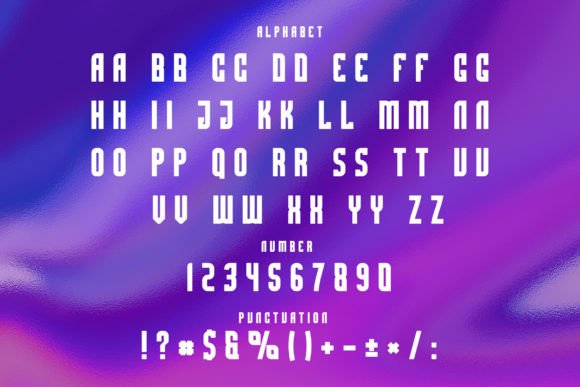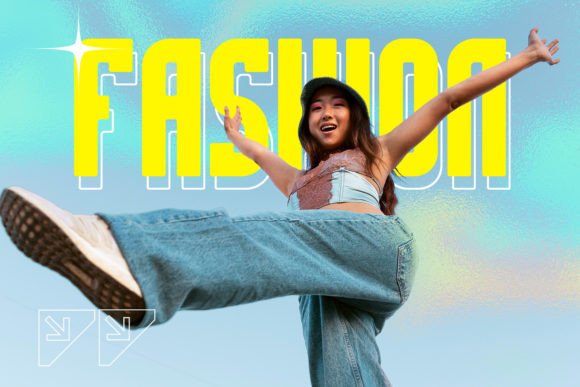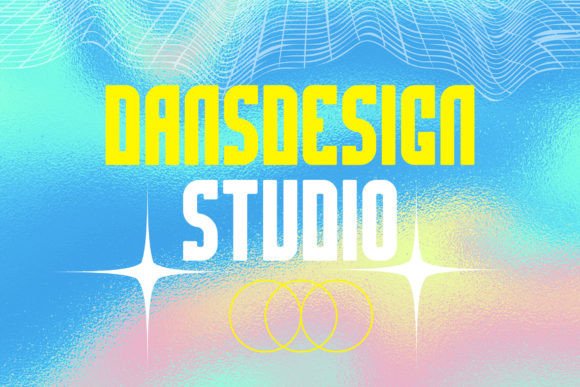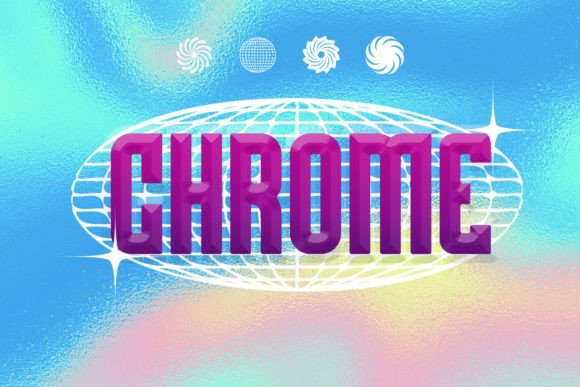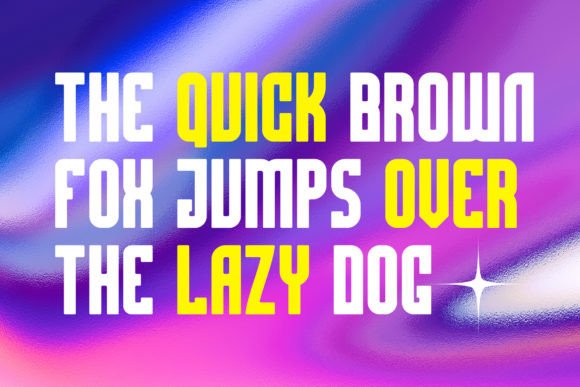
Introduction to Macarthur Font Font
Fonts play a crucial role in design, and the Macarthur Font font is a typeface that brings both character and versatility to any project. Whether you’re working on a branding project, a website, or a print design, the Macarthur Font font offers a unique style that can elevate your work.
| 📌 Font Name | Macarthur Font |
| 👤 Author | Dansdesign |
Macarthur is a bold and eye-catching typeface inspired by the Y2K era.
It has a futuristic and playful look, perfect for making text stand out The letters are big and chunky, making it great for titles, posters, and any design that needs a fun and retro feel.
Key Features of Macarthur Font Font
Why Choose Macarthur Font Font?
The Macarthur Font font is more than just a typeface – it’s a design tool that helps you communicate your message with style and clarity. Its unique character set and versatile design make it suitable for a wide range of applications, from elegant invitations to bold headlines.
With its carefully crafted letterforms and balanced proportions, the Macarthur Font font ensures readability and visual appeal across all mediums.
What makes Macarthur Font font special?
The Macarthur Font font stands out with its unique design, exceptional readability, and versatility across various design applications.